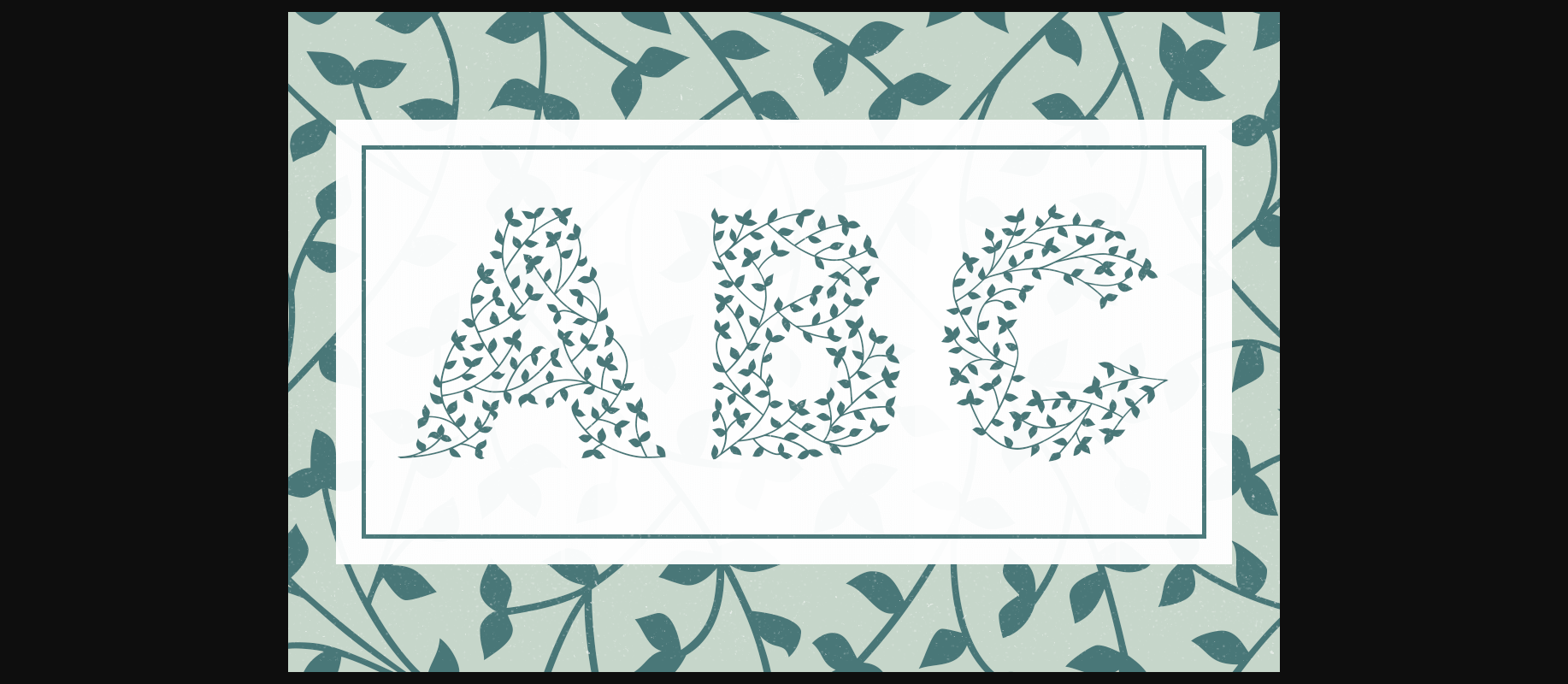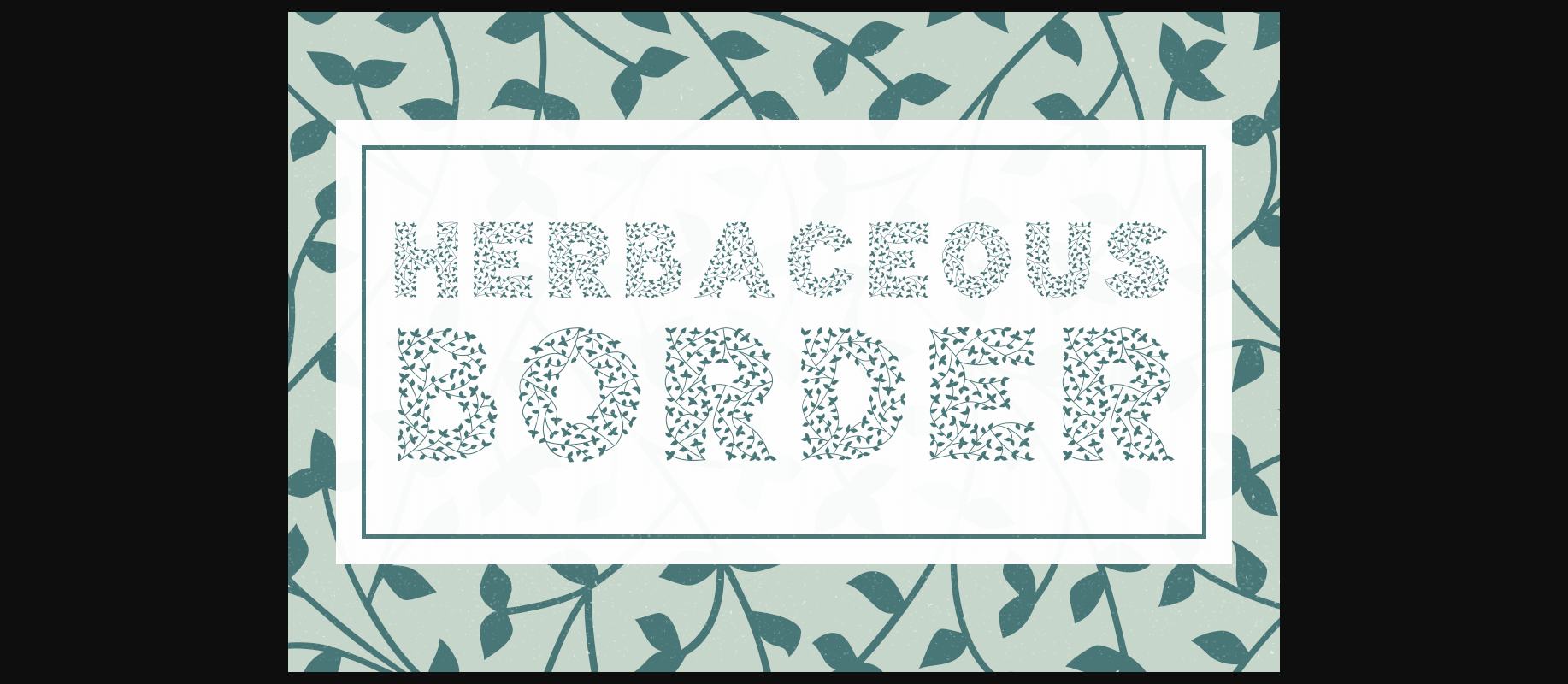
About Herbaceous Border Font
The Herbaceous Border features blocky letters made up of an intricate pattern of leaves and vines. It should definitely be used for headlines to get the most out of the details.
All of the letters are capitals but the lowercase characters provide an alternative set of leafy designs.